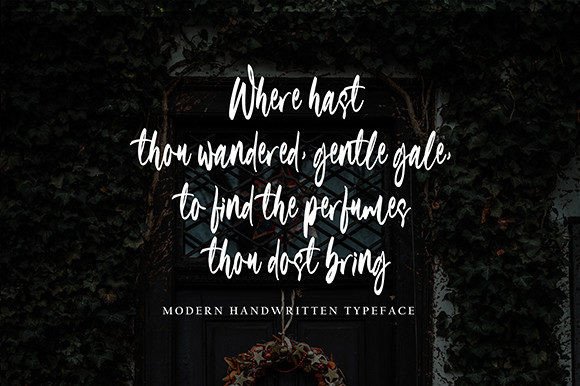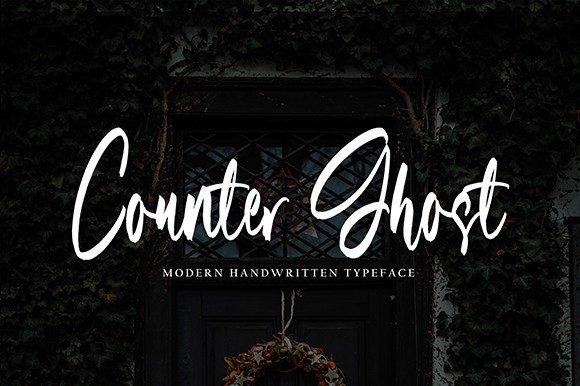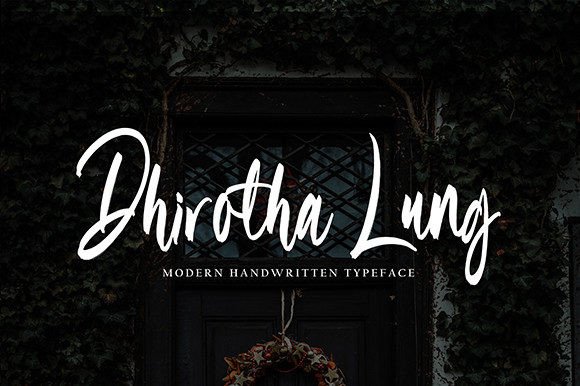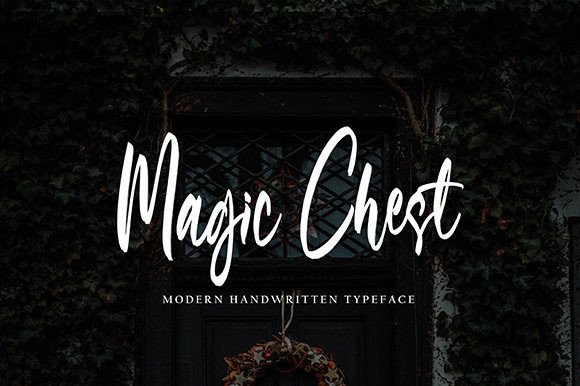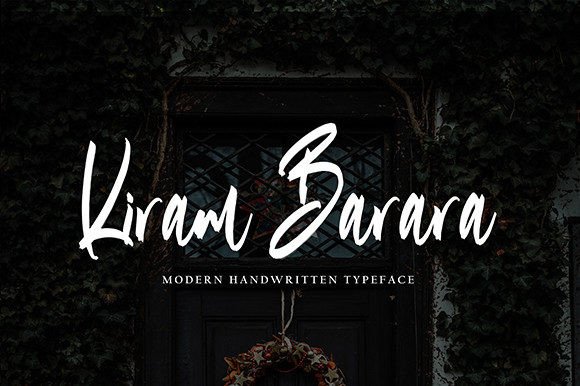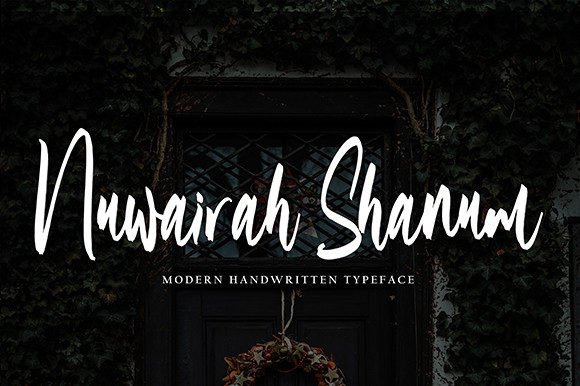
Introduction to Shibatung Font
Have you ever stared at a blank canvas, waiting for inspiration to strike, only to have a spark of creativity suddenly ignite? That’s exactly what happened when I stumbled upon the Shibatung Font. Its unique, handwritten style immediately caught my eye, and I knew I had to incorporate it into my next creative project.
As a designer, I’m always on the lookout for high-quality design resources that can elevate my work and help me stand out. The Shibatung Font is a game-changer, offering a fresh and modern look that’s perfect for any project. Whether you’re working on a branding project, creating social media graphics, or designing a website, this font is sure to add a touch of sophistication and style.
Key Features of Shibatung Font
- Includes a wide range of characters, including Latin, Cyrillic, and Greek alphabets, making it suitable for multilingual projects.
- Unique characteristics include a bold and playful style, making it perfect for branding, packaging, and advertising designs.
Honest Review: Shibatung Font
As a designer, I’m always on the lookout for high-quality design resources to enhance my creative projects. Recently, I had the chance to try out the Shibatung Font, and I must say it’s a great addition to my collection.
Here are some things that work well with the Shibatung Font: ✨
- High-quality glyphs: The font features a wide range of glyphs, making it perfect for designers who need to create content in various languages.
- Transparent background: The font’s transparent background allows for seamless integration with any design, giving me more flexibility when working on projects.
However, I did encounter some limitations with the Shibatung Font: ⚠️
- Limited font weights: The font only comes in a few weights, which can be a bit restrictive for designers who need a wider range of font weights.
- No italic or bold versions: Unfortunately, the font doesn’t come with italic or bold versions, which can limit its use in certain design contexts.
Overall, I’m impressed with the Shibatung Font, and I would definitely recommend it to designers who are looking for a high-quality, free design resource. Just be aware of its limitations, and you’ll be able to make the most out of it.
The Shibatung Font is a high-quality design resource perfect for any creative project. With its unique style and transparent background, it can add a touch of elegance to your designs.
The Shibatung Font is perfect for a variety of use cases, including:
- Graphic design projects.
- Marketing materials.
- Web design projects.